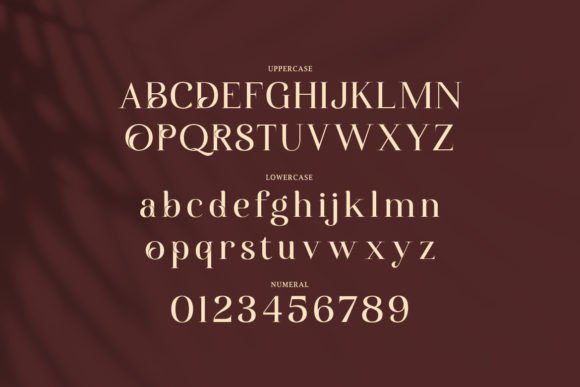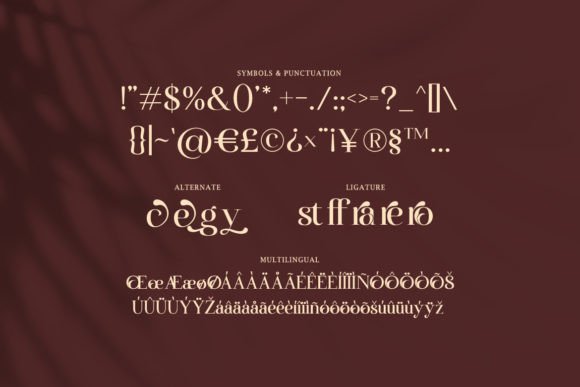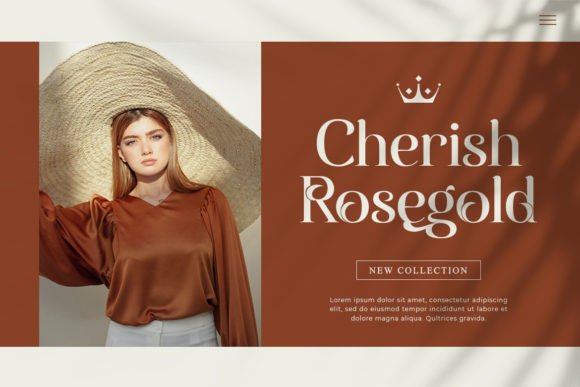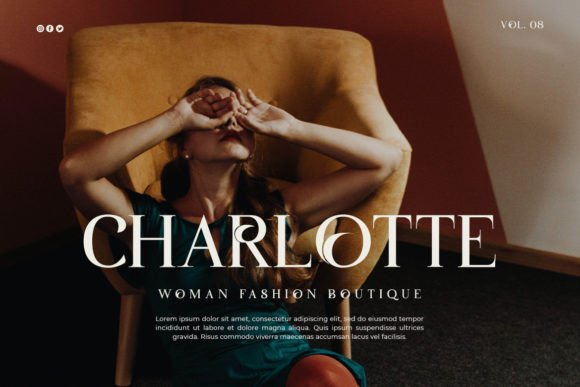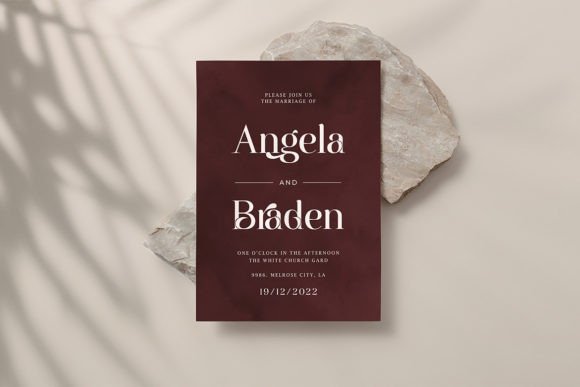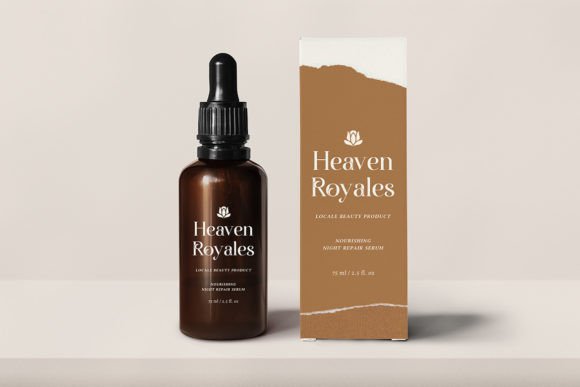
Discovering the Perfect Harmony: Auralyess Font
As a designer, you know that moment when you’re working on a project, and you just can’t seem to find the right font to bring it all together. It’s like searching for the perfect melody to complement your composition. You want something that’s going to elevate your design, make it stand out, and leave a lasting impression. That’s exactly what you get with the Auralyess Font.
This elegant serif font is the result of careful craftsmanship, blending traditional influences with a contemporary aesthetic. With its versatility and subtle yet exquisite look, the Auralyess Font is the perfect addition to any project. Whether you’re working on a book cover, a website, or a logo, this font is sure to bring your design to life.
As a designer, you’ll appreciate the value that the Auralyess Font brings to your work. Its adaptability and timeless beauty make it an invaluable tool in your creative arsenal. So why settle for an ordinary font when you can have a masterpiece? Try the Auralyess Font today and discover a whole new world of design possibilities.
Auralyess Font Key Features
- Font Size: The font comes in multiple sizes, ranging from 10 points to 72 points, catering to various design needs.
- Resolution: Auralyess Font is designed for high-resolution displays, making it ideal for use in digital media, such as websites, social media, and mobile apps.
- Unique Characteristics: This font features a unique blend of modern and elegant design elements, with subtle flair and sophistication, making it perfect for creative and artistic projects.
- Scalability: The font is highly scalable, ensuring that it looks great in various sizes and resolutions, from small text to large headings.
Auralyess Font Review
Auralyess Font caught my attention with its unique blend of modern and vintage elements. ✨ The combination of geometric shapes and soft curves creates a visually appealing effect that works well in both digital and print media. ✨ The font family includes a wide range of weights and styles, making it versatile for various design applications.
However, I do have some concerns about the font’s performance in certain situations. ⚠️ At smaller font sizes, some of the characters may appear blurry or pixelated, which can be distracting. ⚠️ Additionally, the font’s ligature system can be inconsistent, leading to awkward letter combinations in certain words.
Here are some specific areas where Auralyess Font shines:
- Unique blend of modern and vintage elements
- Wide range of weights and styles
- Works well in both digital and print media
On the other hand, the font’s limitations include:
- Blurry or pixelated characters at smaller font sizes
- Inconsistent ligature system
Overall, Auralyess Font is a great choice for designers looking for a unique and stylish font. While it may have some limitations, its versatility and visual appeal make it a solid addition to any design portfolio.
Auralyess Font Practical Application Guide
Tips for using Auralyess Font in Canva: Use it for creative headings and titles to add a touch of elegance and sophistication.
Tips for using Auralyess Font in Adobe Photoshop/Illustrator: Use it for custom typography projects, such as creating a logo or designing a brochure.
Tips for using Auralyess Font in PowerPoint/Word: Use it for presentations and documents that require a touch of professionalism and sophistication.
Auralyess Font is suitable for a variety of applications, including:
- Business cards and resumes
- Presentations and documents
- Social media posts and ads
Overall, Auralyess Font is a versatile and elegant font that can add a touch of sophistication